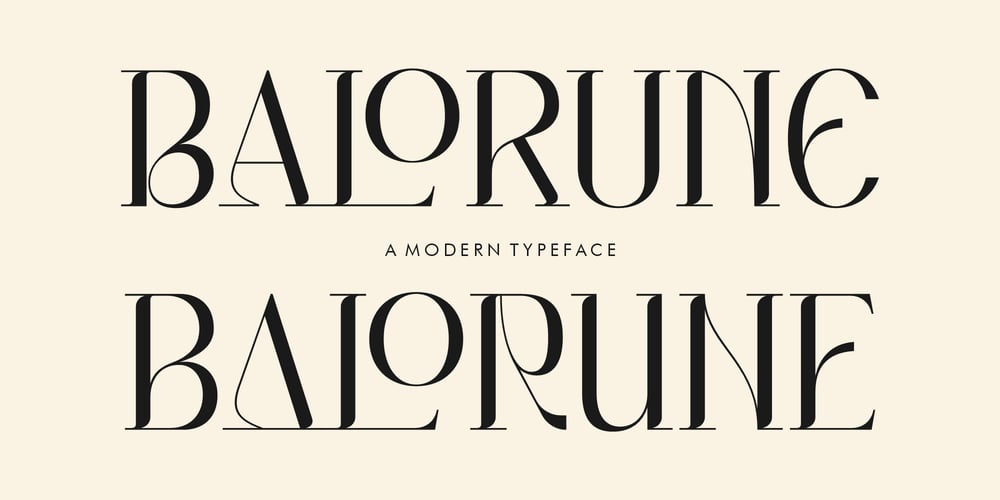
Balorune Font Family was designed by Heru Utama Putra and published by Letterena Studios. Balorune contains 2 styles and family package options. Proudly present BALORUNE TypefaceA serif modern and classic typeface that has its own unique style & modern look.This typeface is perfect for an elegant & luxury logo, book or movie title design, fashion brand, magazine, clothes, lettering, quotes, and so much more.